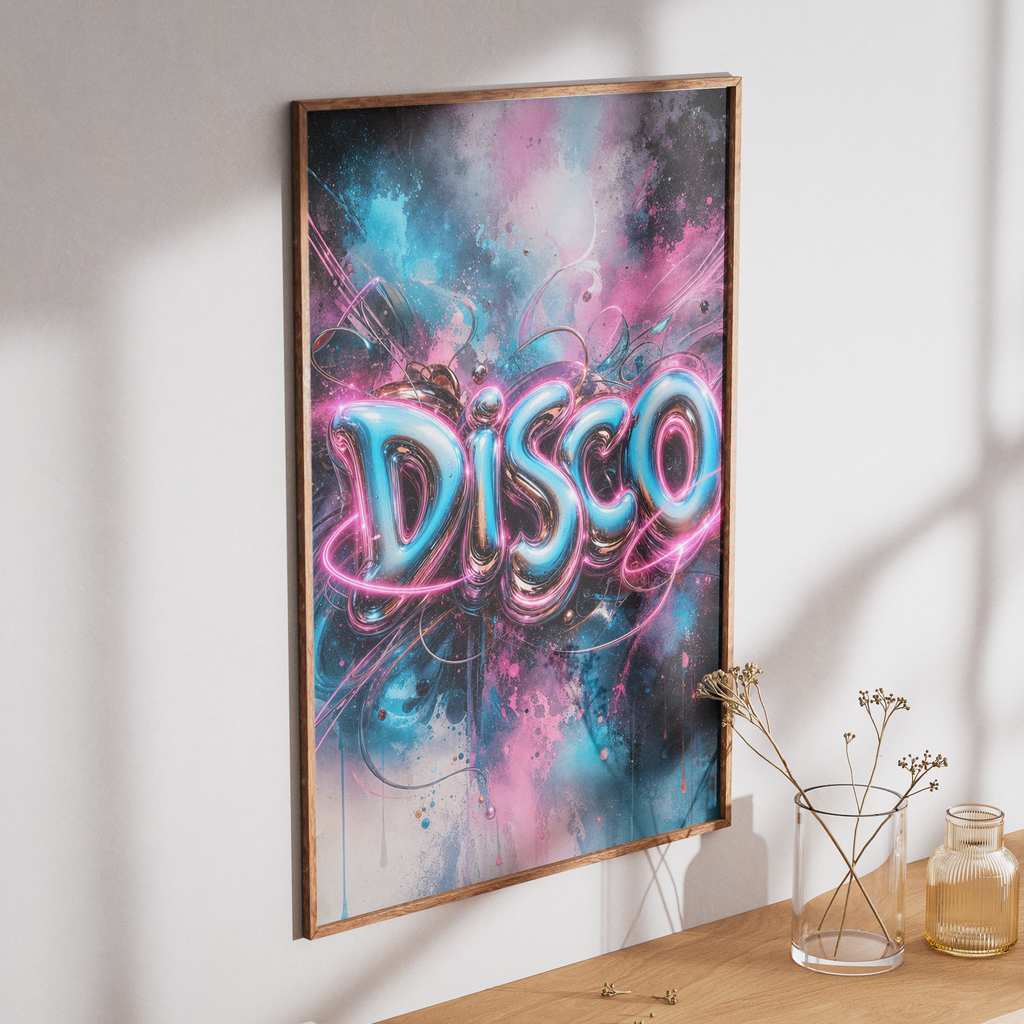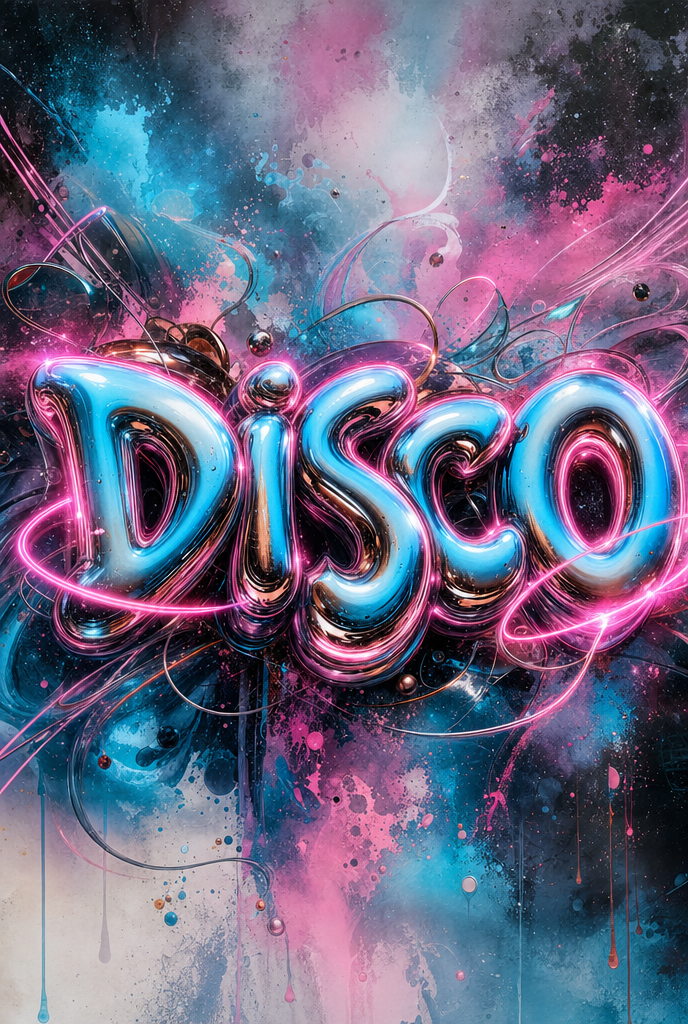
DISCO
Disco neon balloon poster (61 × 91 cm) — glossy, inflatable-style lettering in electric cyan and hot pink, with swirling light trails and cosmic paint splatters for a high-energy, retro-futuristic vibe. Ideal for parties, music rooms, clubs, or vibrant home decor.